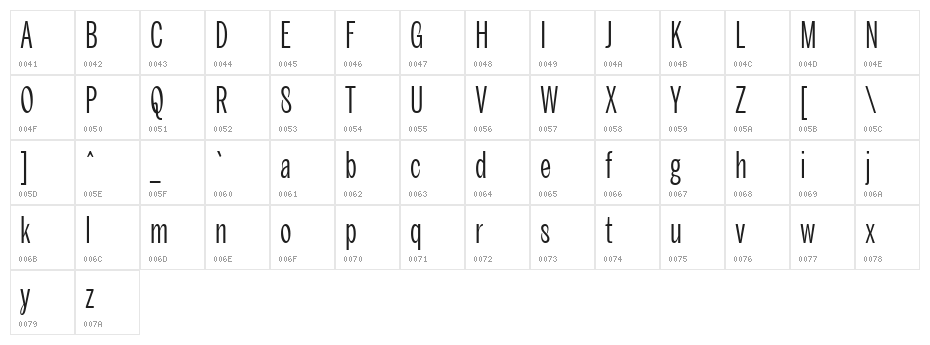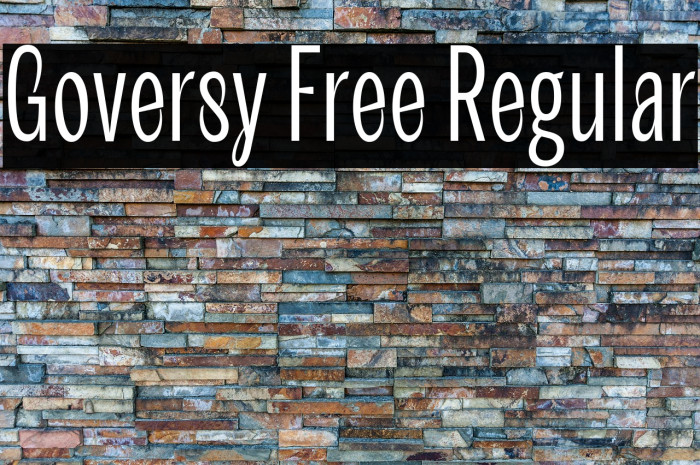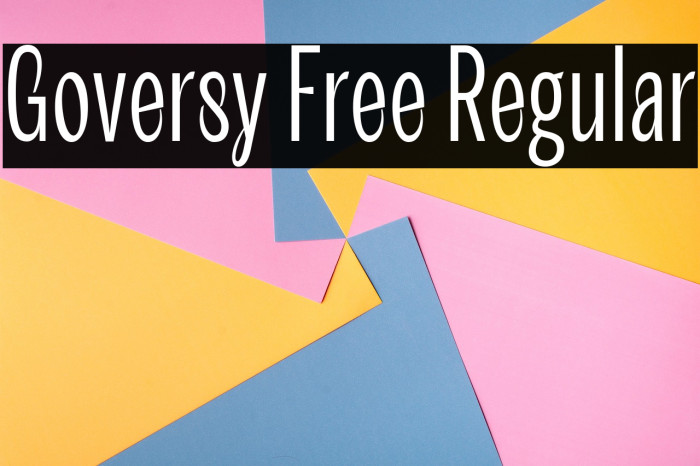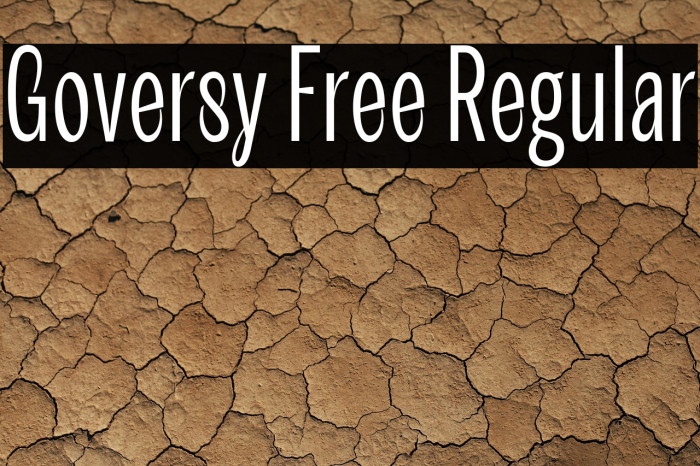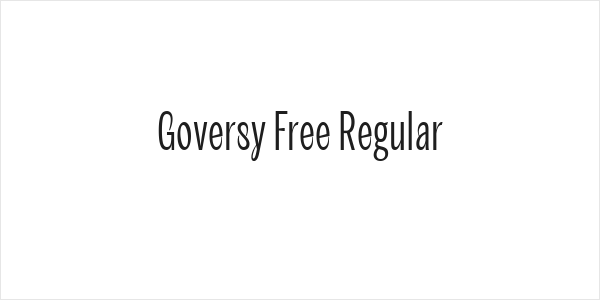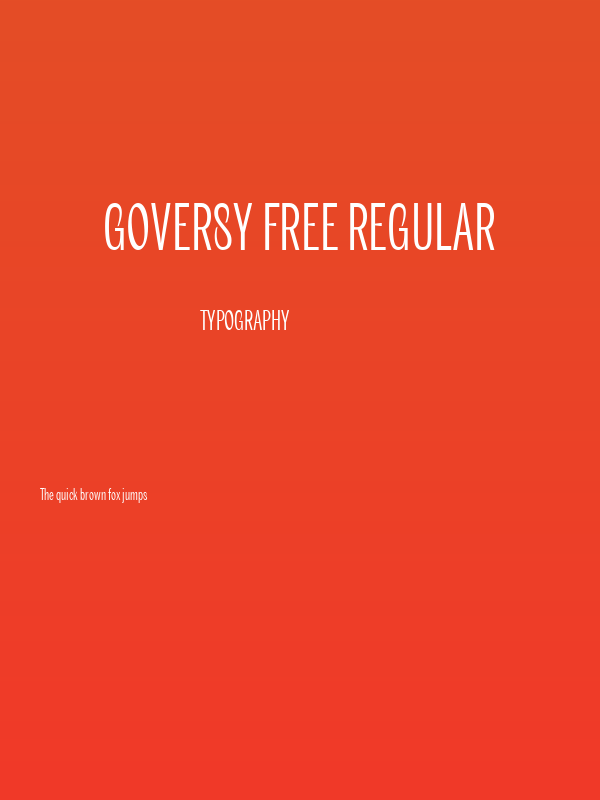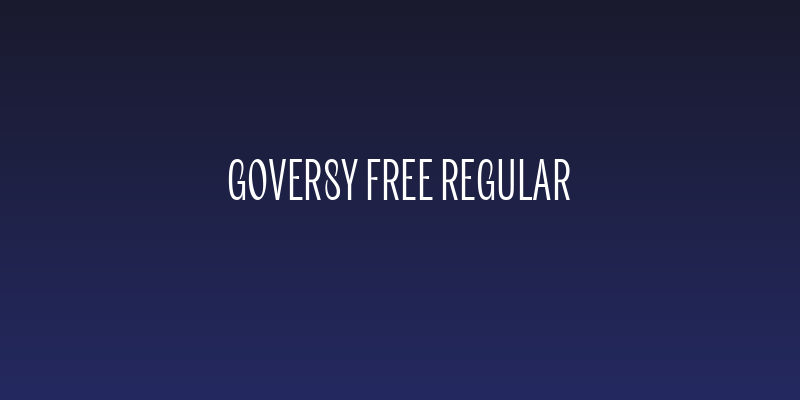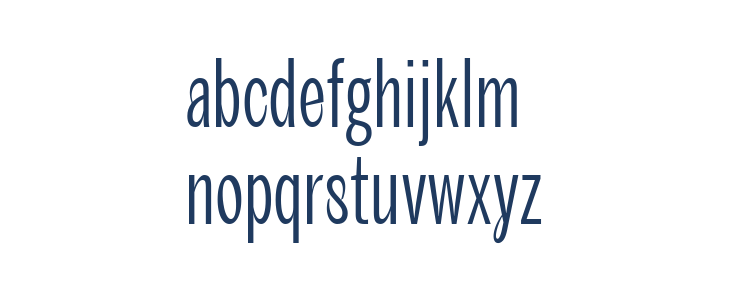
Goversy Free Regular Font
Goversy Free Regular Description
This font features a tall and narrow design with clean, straight lines and a modern aesthetic. The uppercase letters are uniform in height, while the lowercase letters maintain a consistent baseline with slight variations in ascender and descender lengths. The characters exhibit a geometric structure, giving them a sleek and contemporary look. The font's vertical emphasis is complemented by its thin strokes, which provide a sense of elegance and sophistication. The spacing between characters is tight, enhancing its compact appearance. This font is well-suited for applications that require a modern and stylish touch.